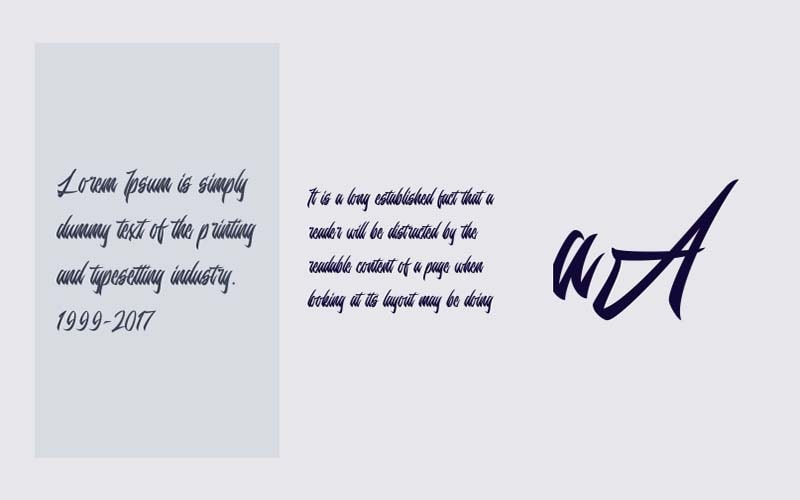
Louisiana is a Handwritten, Script typeface. It is a natural bold script Font with elegant swash extras. A collection of letters and numbers which is suitable for your projects.
This is a great typeface for Logotype, Branding Design, Logo Design, Digital Lettering Art, T-Shirt, Apparel, posters, magazines, Signs, Advertising Design, and any design needs.
This amazing font has 2 styles available such as Louisiana Regular, and Louisiana Origin. Most designers prefer this free high-quality regular font for designing logos.
This script font has come with 82 characters set like 26 uppercase letters, 26 lowercase letters, and 10 numbers. In addition to the ligatures of the uppercase and lowercase schemes, there are 20 special symbols, including punctuation marks.
Louisiana Font